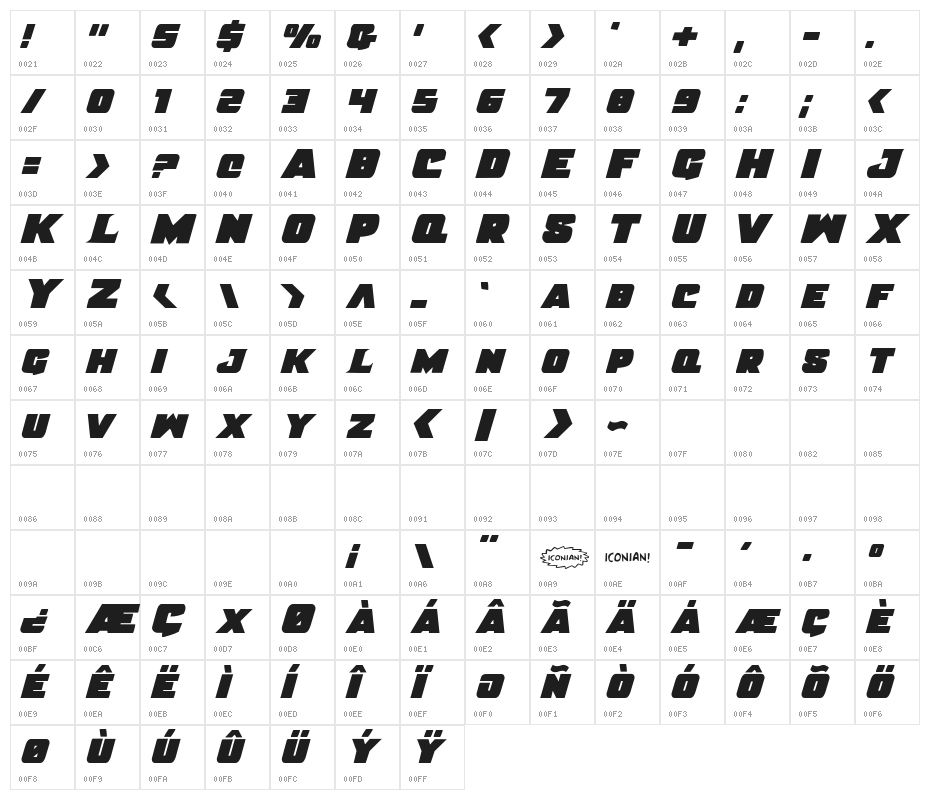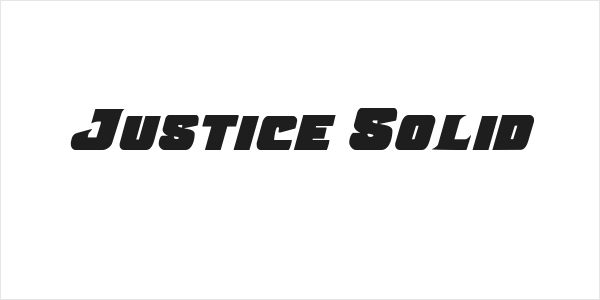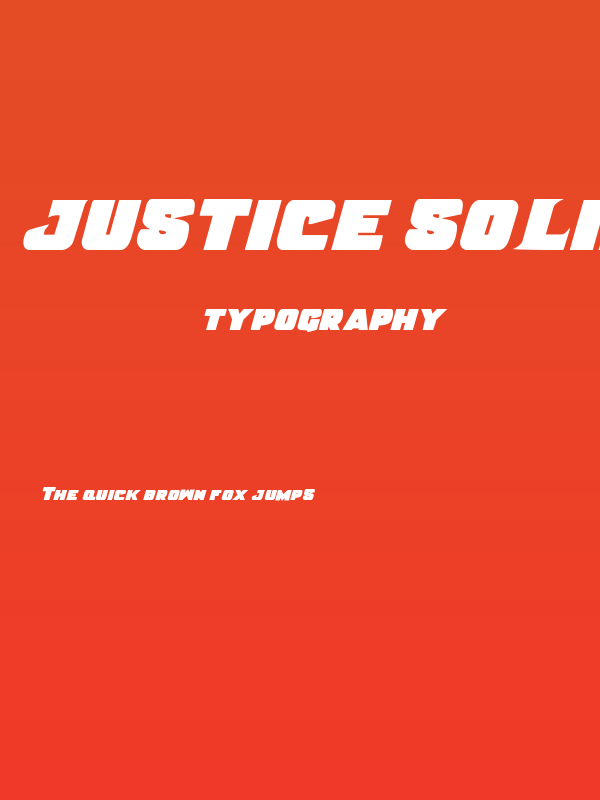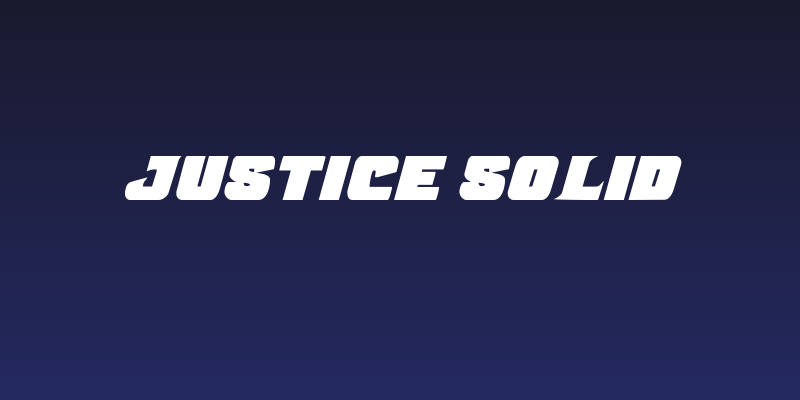
Justice Solid Font
Justice Solid Description
This font features a bold and dynamic design with a strong, angular structure. The characters are wide and have a distinct slant, giving them a sense of motion and energy. The strokes are thick and consistent, providing a solid and impactful appearance. The uppercase and lowercase letters maintain a uniform style, while the numbers and special characters complement the overall aesthetic. This font is ideal for making a statement and capturing attention with its powerful presence.
| Proposed Projects | Ideal for sports branding, action movie posters, video game titles, and dynamic advertising campaigns. |